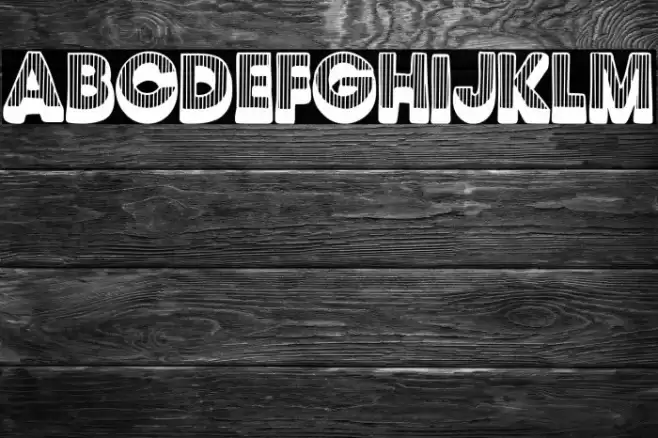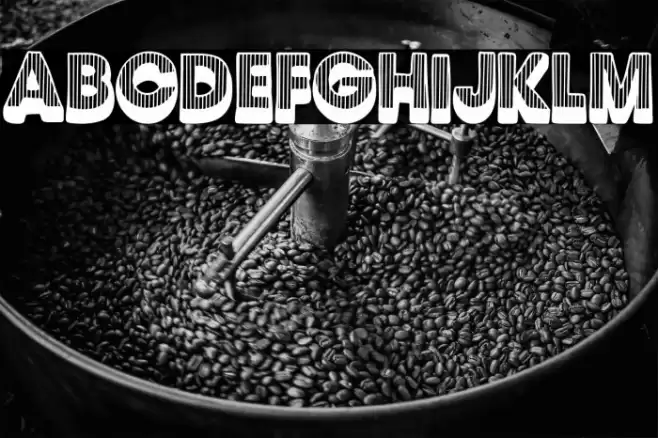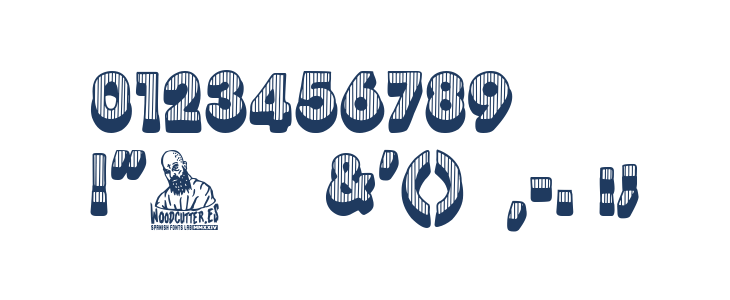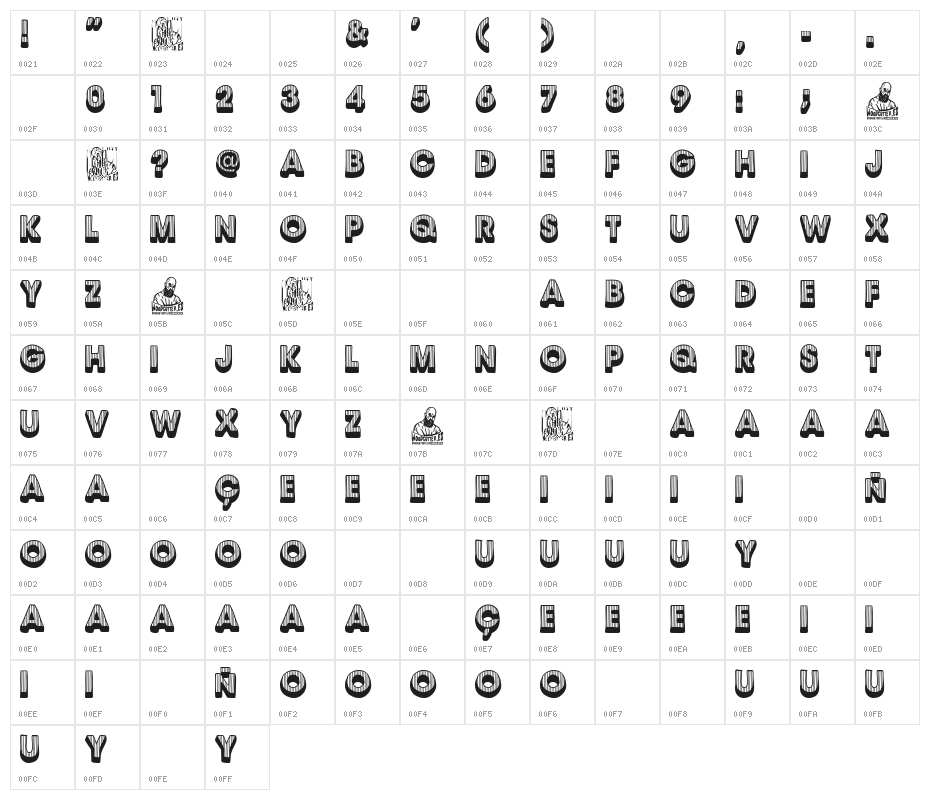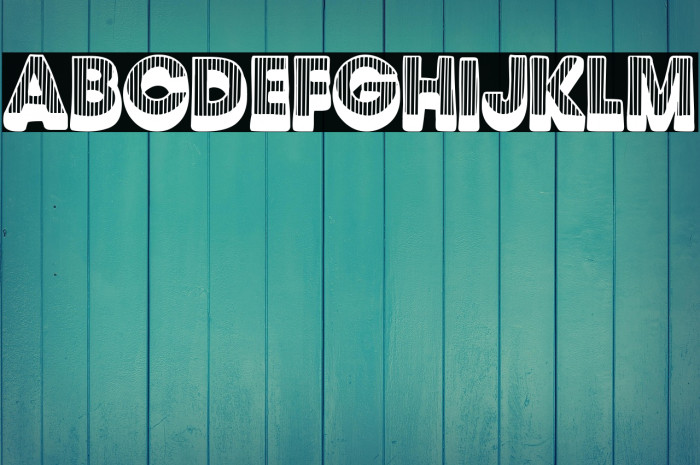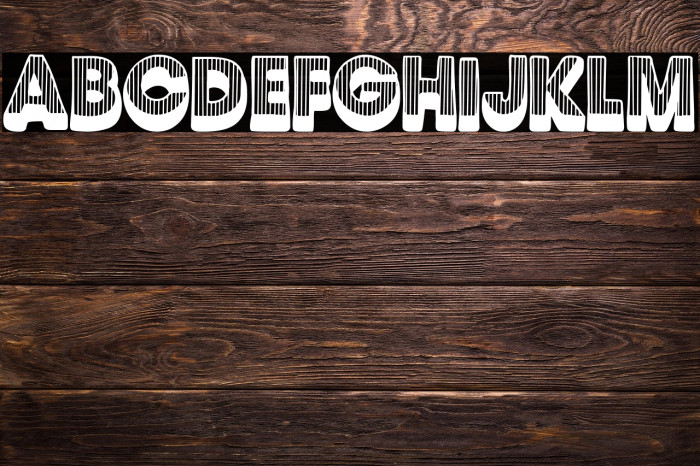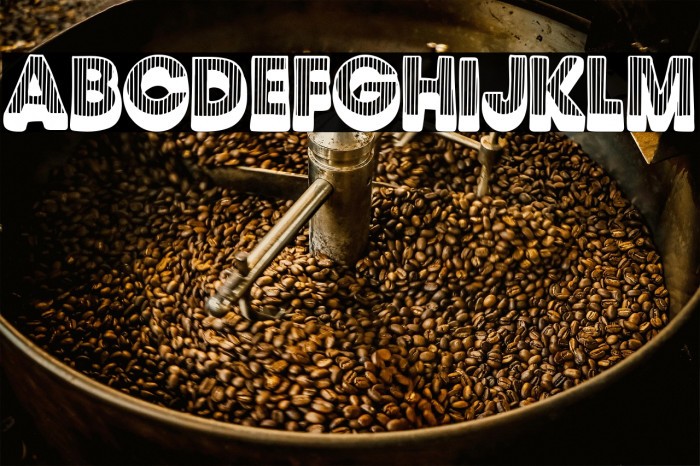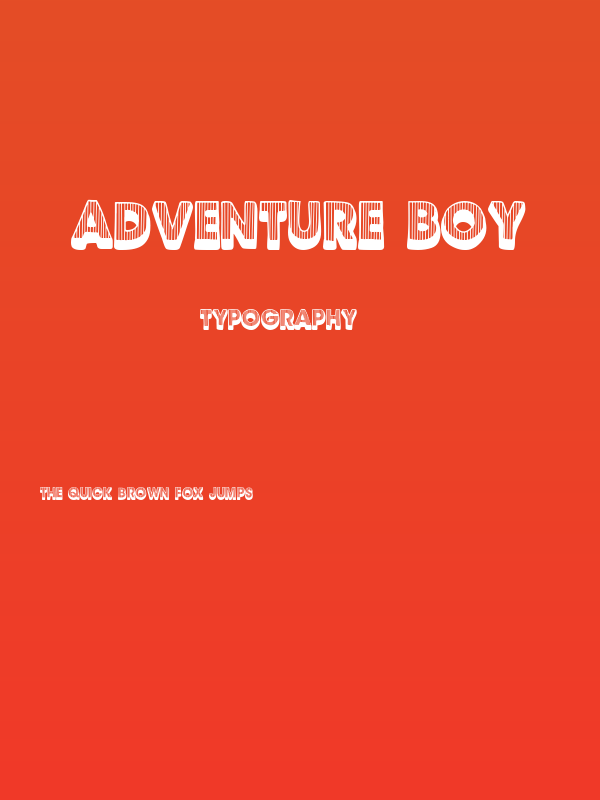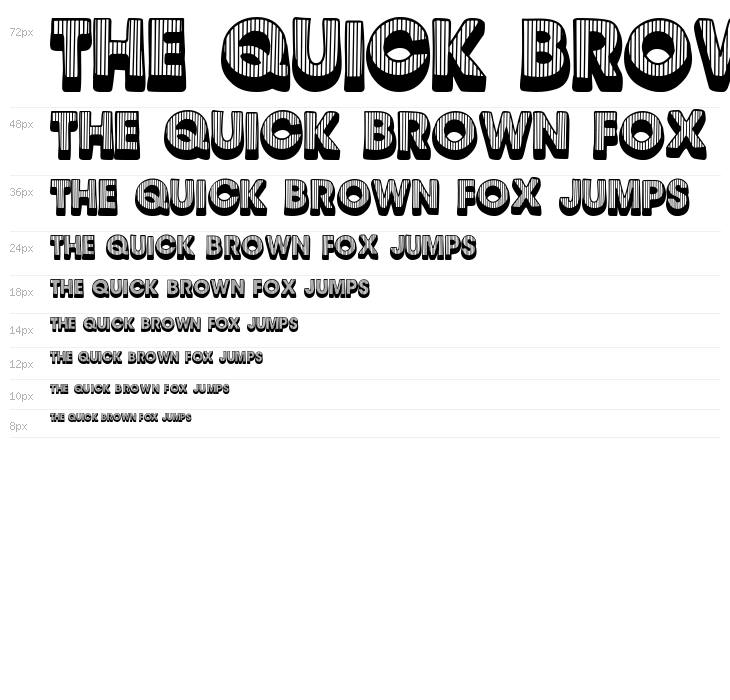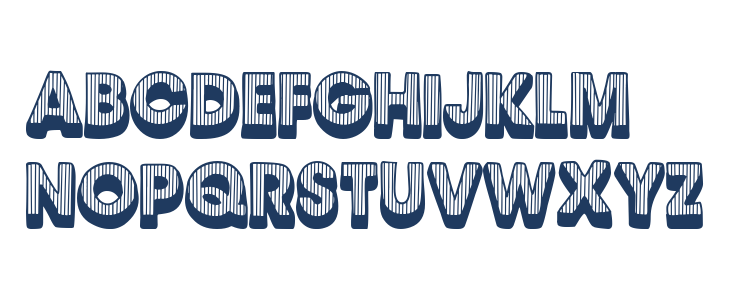
Adventure Boy Font
Adventure Boy Description
This font features a bold, playful design with a three-dimensional effect created by a striped pattern within each character. The letters are uppercase and have a strong, impactful presence, making them ideal for attention-grabbing headlines or titles. The numbers and special characters follow the same style, ensuring consistency across all text elements. The design is reminiscent of vintage comic book or adventure-themed typography, adding a sense of fun and excitement to any project.
A bold, playful font with a 3D striped effect, perfect for adventurous themes from Uncategorized fonts.
- Proposed Projects: Ideal for comic book titles, adventure-themed posters, children's book covers, and playful branding.
- Overall Style: Vintage